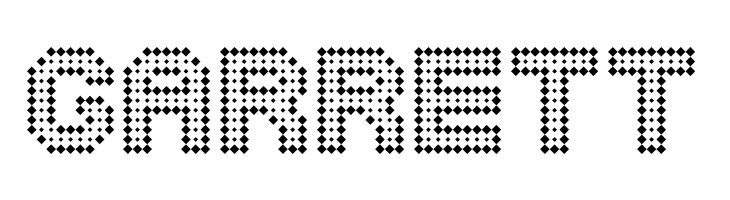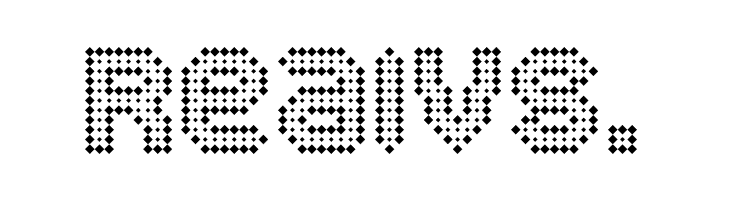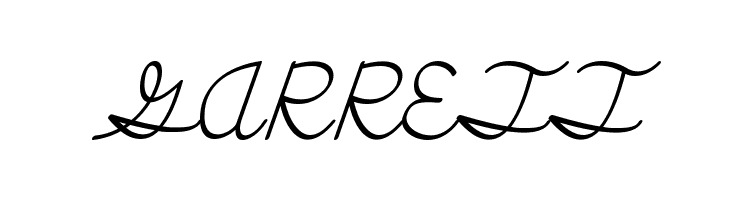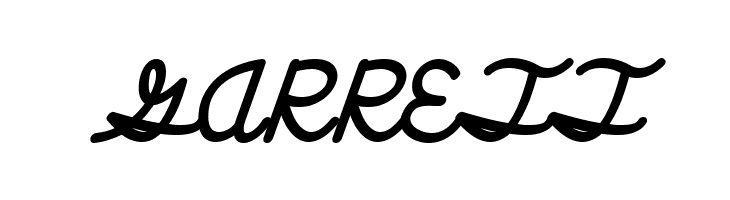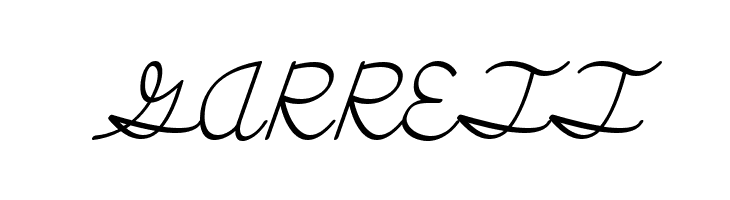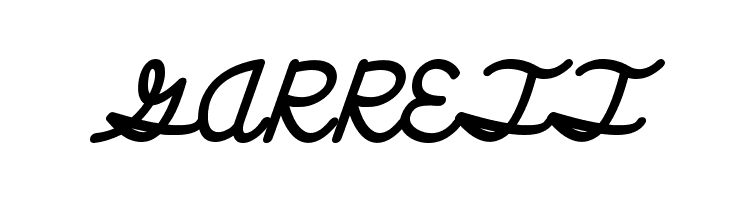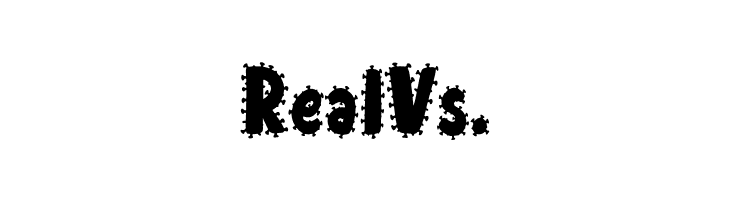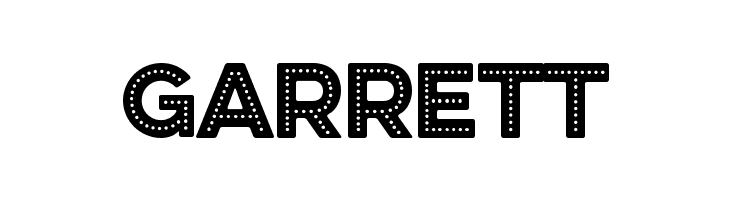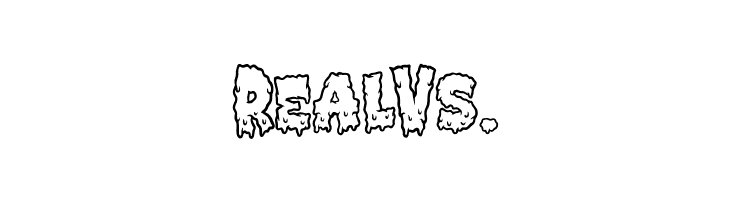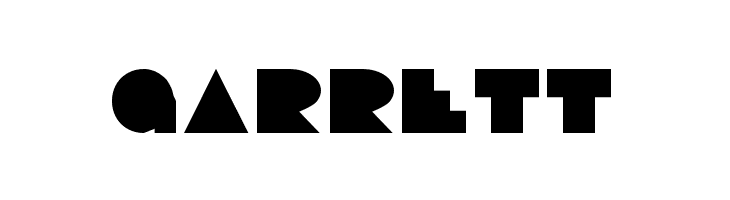
A rugged, hand-drawn font with an edgy, chaotic style.
A dynamic brush-style font with fluid, expressive strokes and a modern calligraphic flair.
A bold, playful font with a hand-drawn, graffiti-inspired style.
A decorative font with a bubble-like texture and playful style.
A bold, textured font with a hand-drawn, artistic style.
A bold, textured font with a rugged, playful design and tight spacing.
A raw, edgy font with a hand-drawn, graffiti-like style.
A bold, gothic-style Blackletter font with intricate detailing.
A rugged, distressed font with a bold, weathered appearance.
A spooky, dripping font ideal for Halloween themes.
Bold, accessible icons for disability and inclusion themes.
A bold, expressive handwritten font with dynamic strokes and playful character.
A bold, outlined geometric font with consistent stroke width and modern style.
A bold, decorative font with a dotted pattern, perfect for retro or marquee-style designs.
A bold, geometric font with rounded edges and a modern style.
A bold, jagged font with a graffiti-inspired style.
An elegant, flowing script font with connected characters and medium contrast.
A graceful script font with fluid, interconnected strokes and a cursive style.
A bold, cursive font with smooth, flowing lines and connected letters.
A bold, cursive font with a playful and energetic style.
A bold, cursive script with interconnected letters and a lively, handwritten style.
An elegant, flowing script font with smooth, connected strokes.
A retro, multi-line decorative font with a bold, rhythmic style.
A futuristic, disco-inspired font with segmented, reflective characters.
A bold, modern font with geometric influences and strong readability.
A decorative font composed of small dots, creating a retro and playful appearance.
A bold, geometric font with a retro disco vibe.
A bold, geometric font with a 3D effect and retro disco vibe.
A bold, geometric font with a retro striped pattern.
A bold, striped font with a retro, disco-inspired design.
A bold, geometric font with a retro halftone pattern, perfect for vintage designs.
A bold, decorative font with a dotted pattern, perfect for vintage-themed projects.